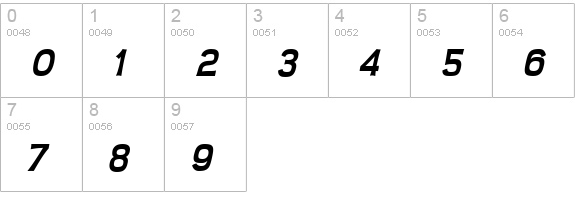
Teen Bold Italic is a strong, high-contrast, italic variant in the Teen typeface family \xE2\x80\x94 well suited to headlines, attention-grabbing titles, and strong calls-to-action.
Introducing Teen Bold Italic font, a stylish and contemporary typeface that embodies the essence of youthful energy and confidence. This font is perfect for projects that require a bold and eye-catching look, making it ideal for teenagers and young adults who want to make a statement with their designs. With its sleek and slanted appearance, Teen Bold Italic font exudes a sense of dynamism and forward motion. Its unique combination of bold and italic strokes adds a touch of sophistication and flair, making it a versatile choice for a wide range of creative endeavors, from posters and flyers to social media graphics and website headers. Not only does Teen Bold Italic font possess an inherent sense of coolness, but it also offers the convenience of being freely available to download at FontsMarket.com. This means that designers and enthusiasts can easily access this font without any cost, allowing for unlimited creativity and exploration. Whether you're designing a trendy fashion blog, a cutting-edge music album cover, or a vibrant event poster, Teen Bold Italic font is the perfect choice to infuse your project with an energetic and modern vibe. Its clean and legible letterforms ensure that your message will be communicated clearly and effectively, while its bold and italicized style adds a touch of excitement and individuality. So, if you're ready to take your designs to the next level and captivate your audience with a font that embodies youthful exuberance and creativity, look no further than Teen Bold Italic font. Download it for free at FontsMarket.com today and unleash your imagination with this exhilarating typeface.